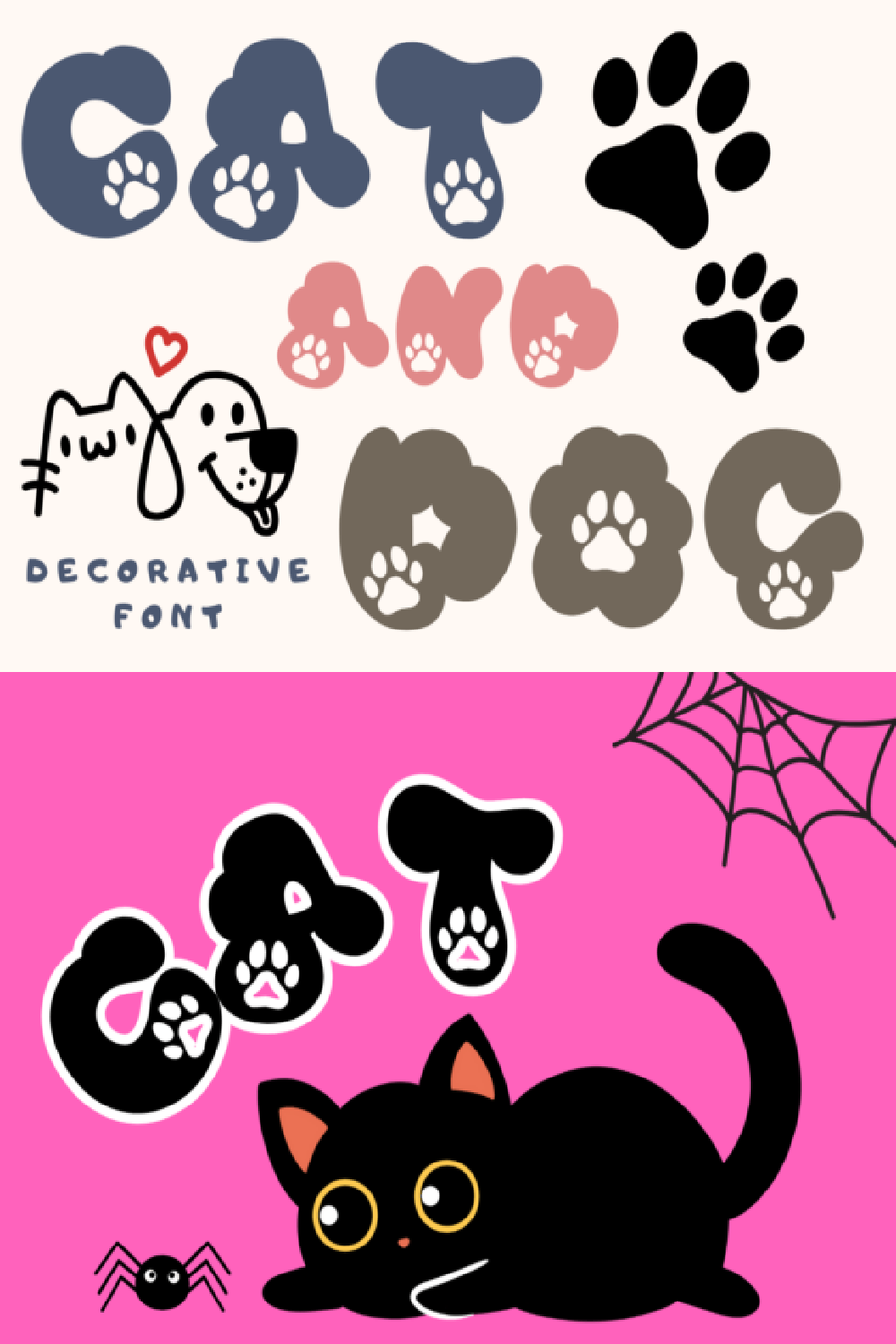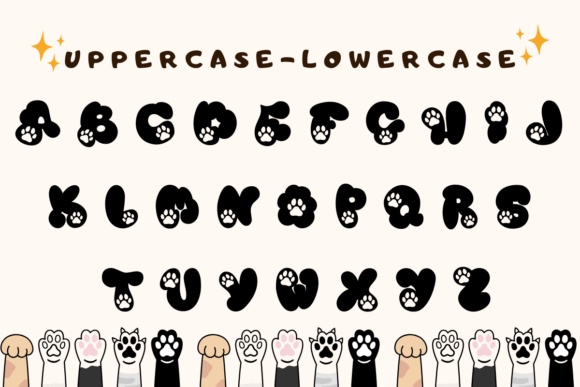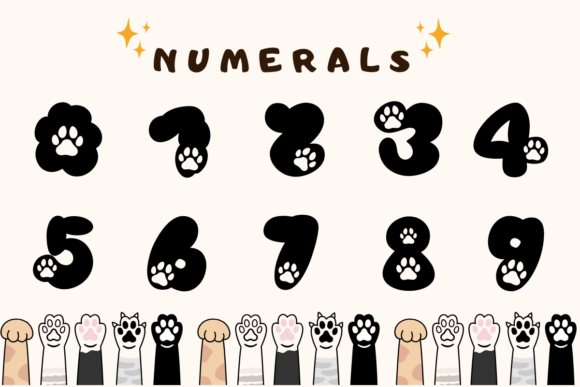
Cat and Dog Font
About the Cat and Dog Font
Elevate your designs with Cat and Dog Font, a font that combines sophistication with readability. Cat and Dog is a handwritten font. You can use it for taking notes, a diaryor, making greeting cards. However, you can still use it for other designs, such as banners, content, mugs, cards, shirts, stationery, social media posts, and more!